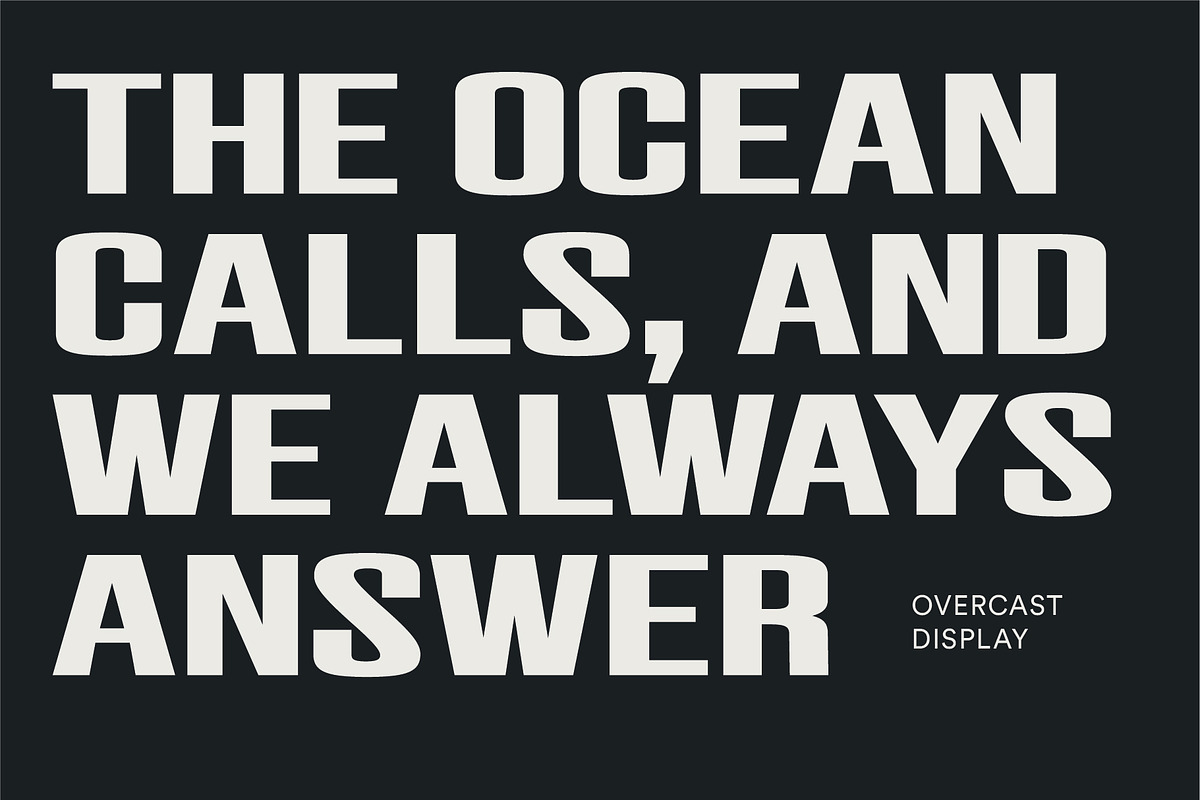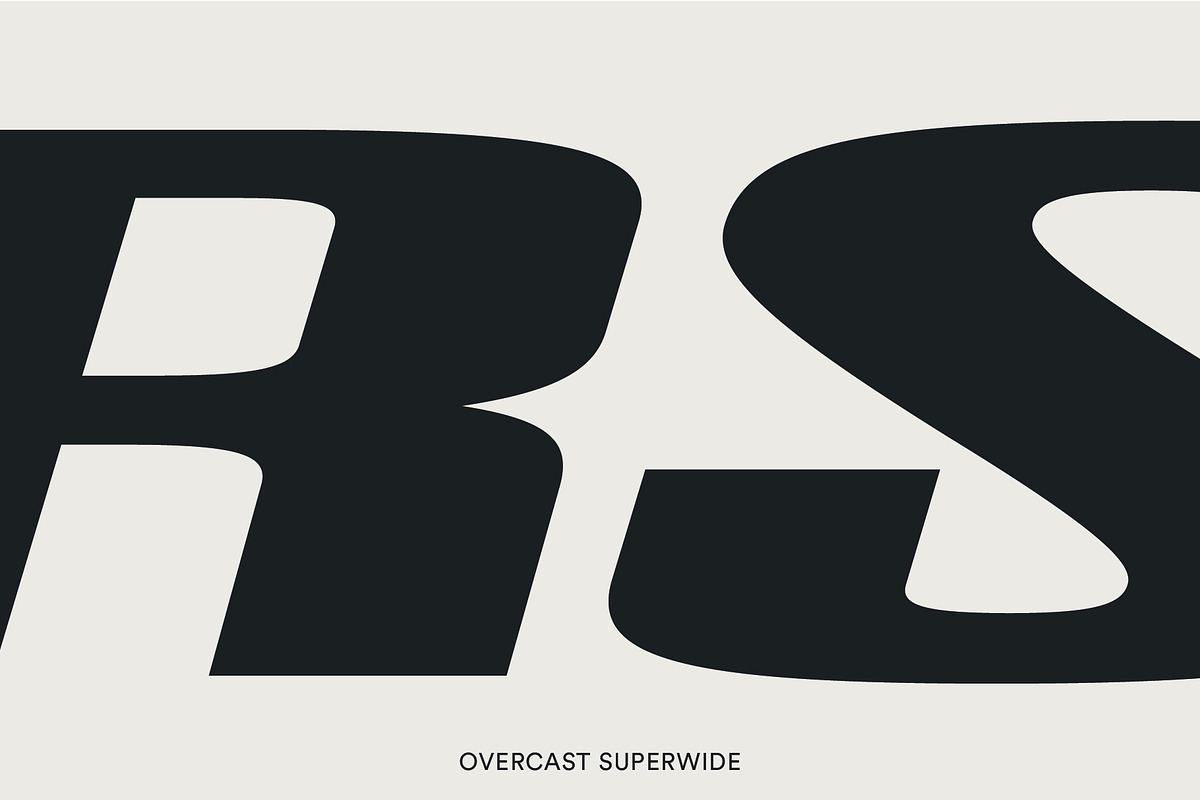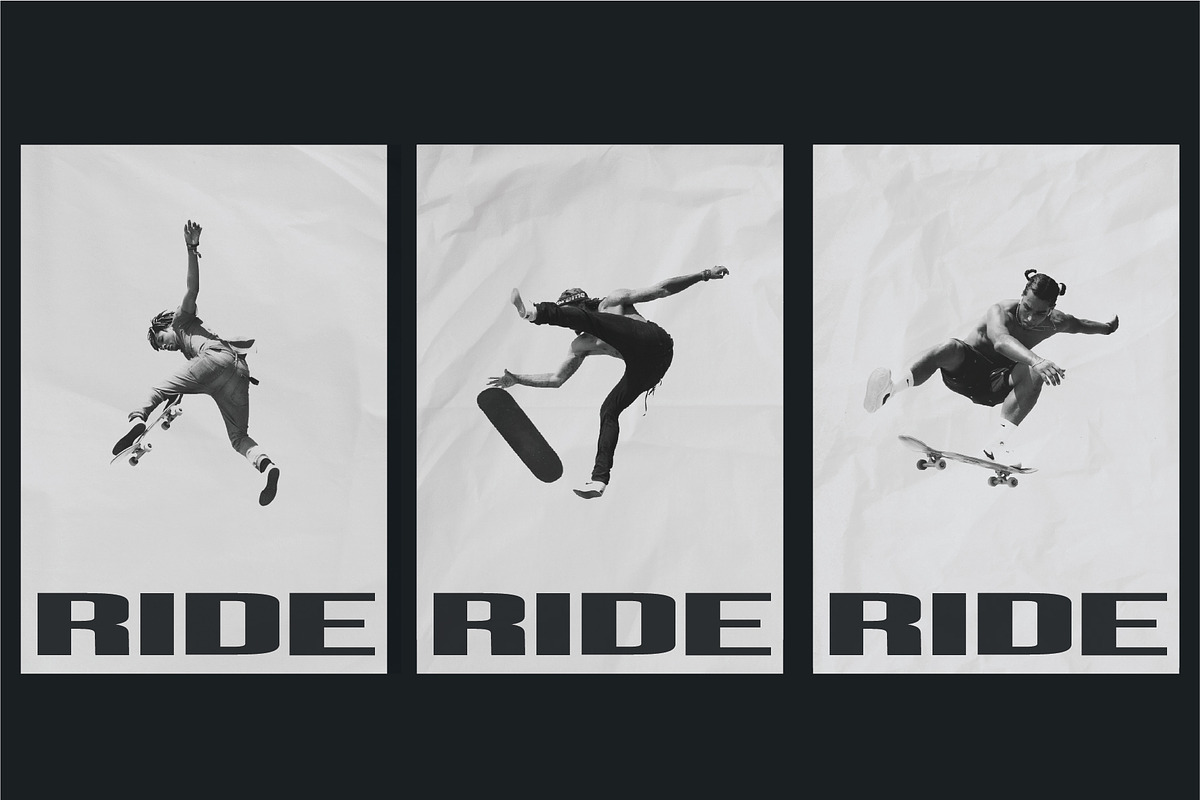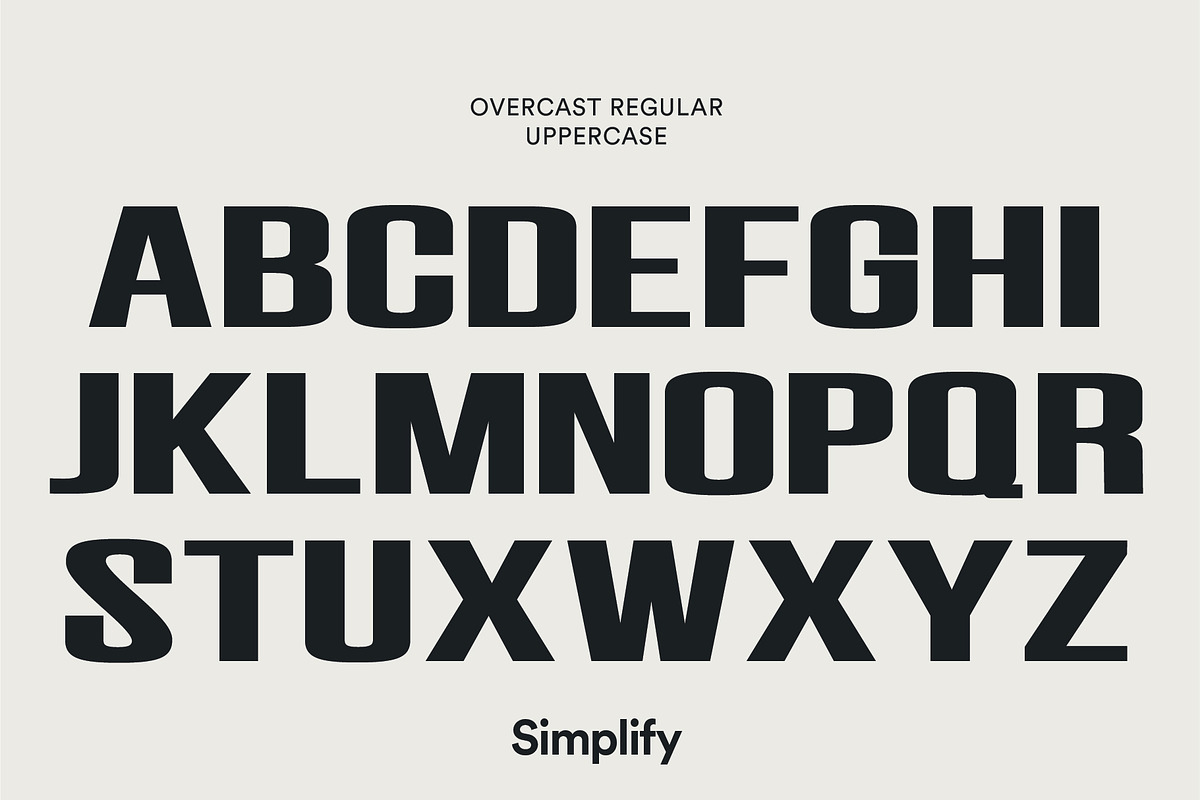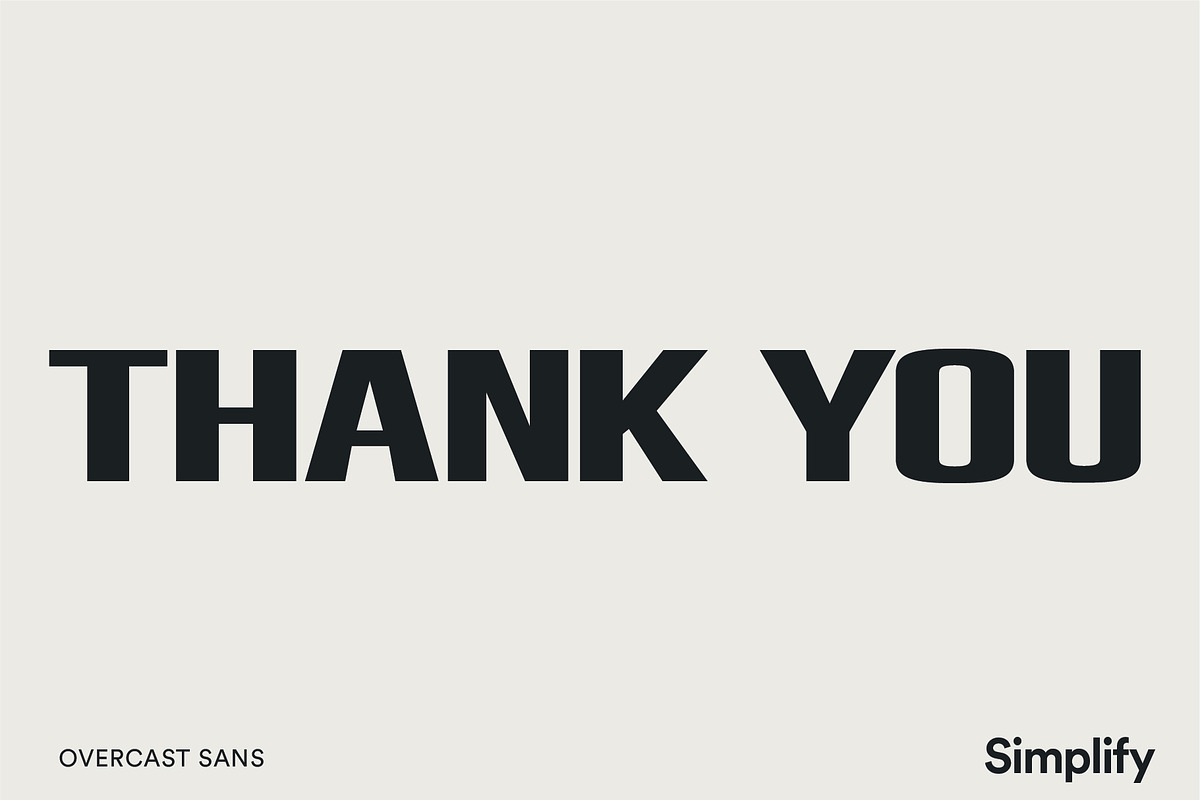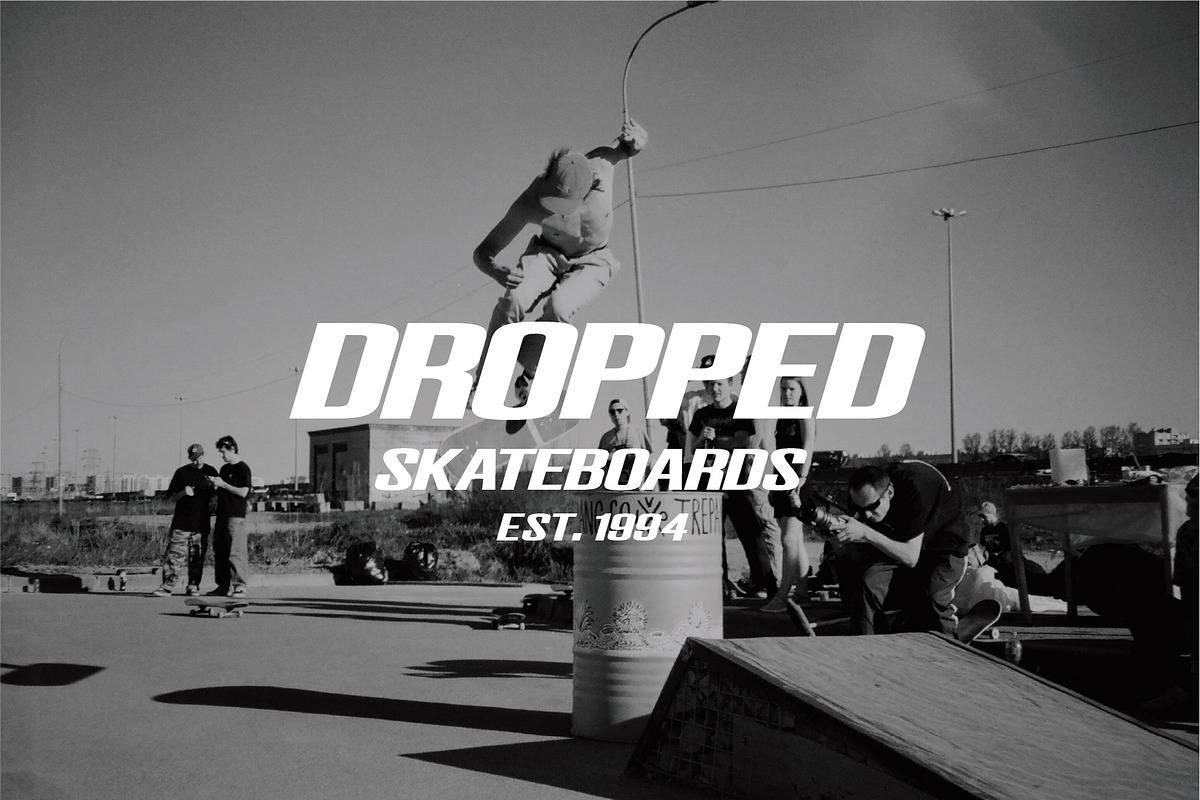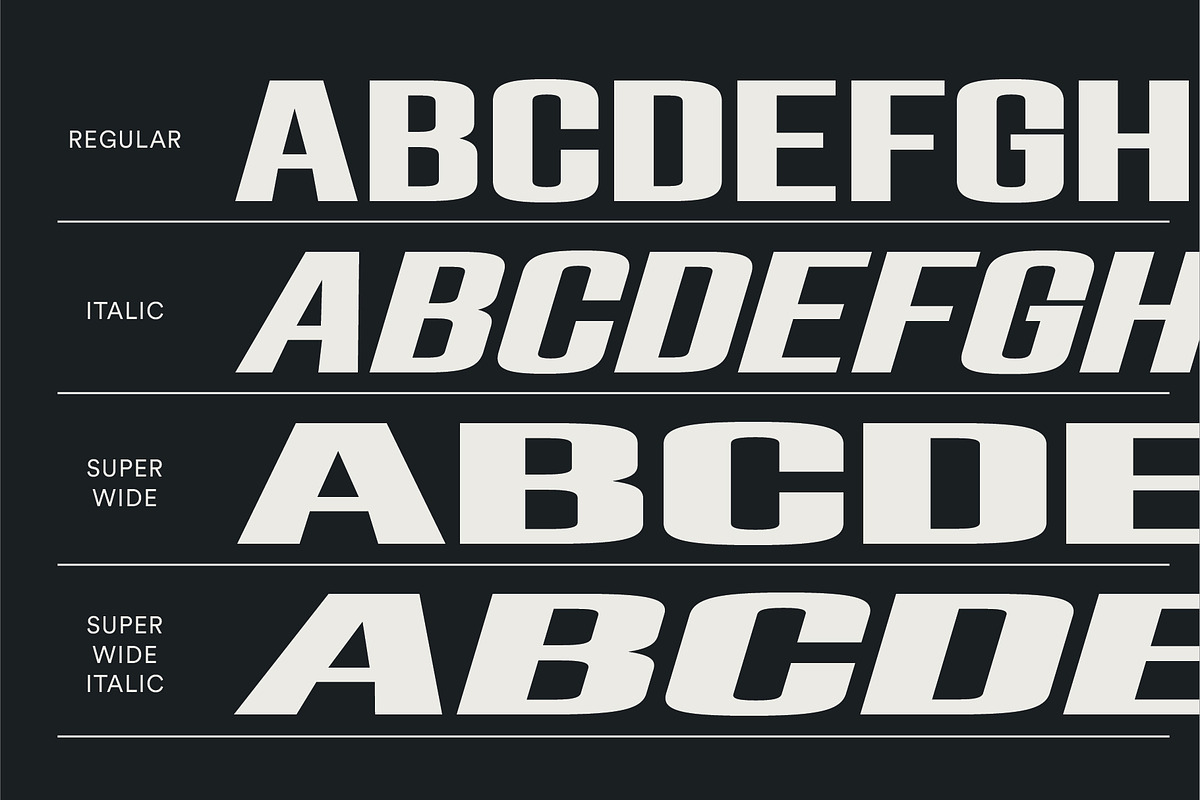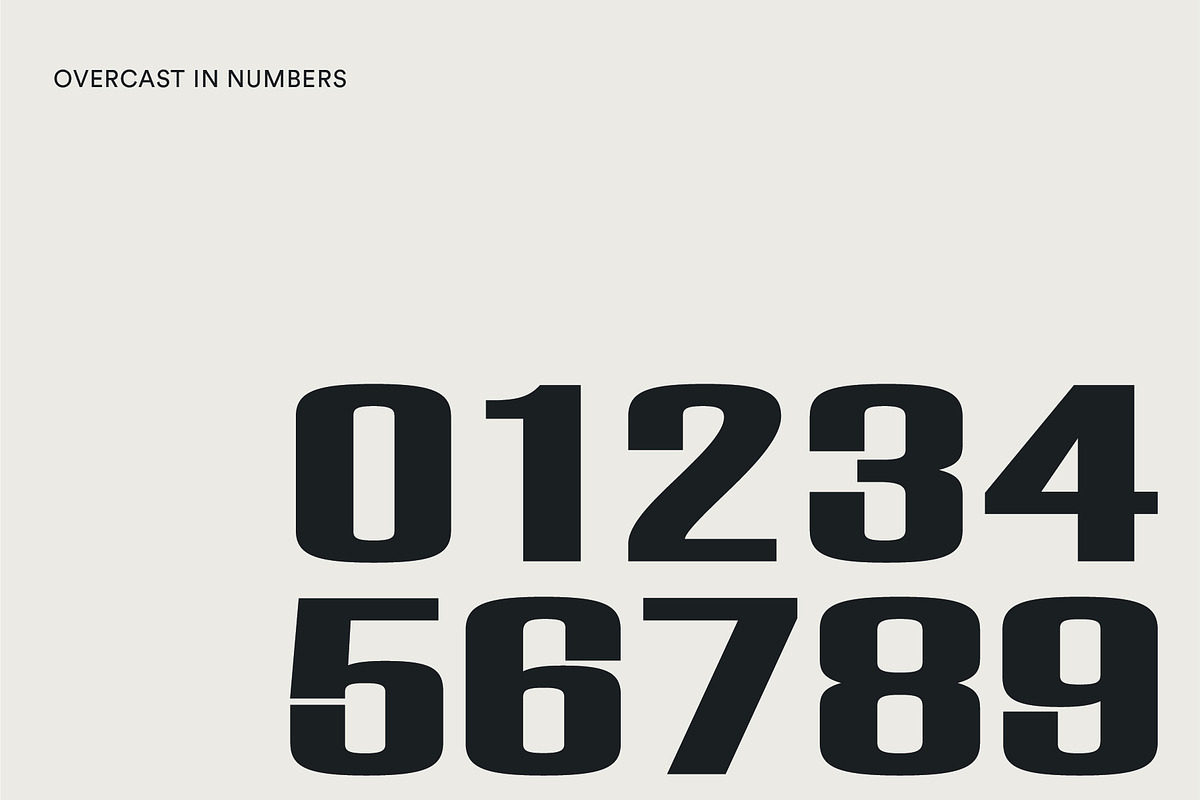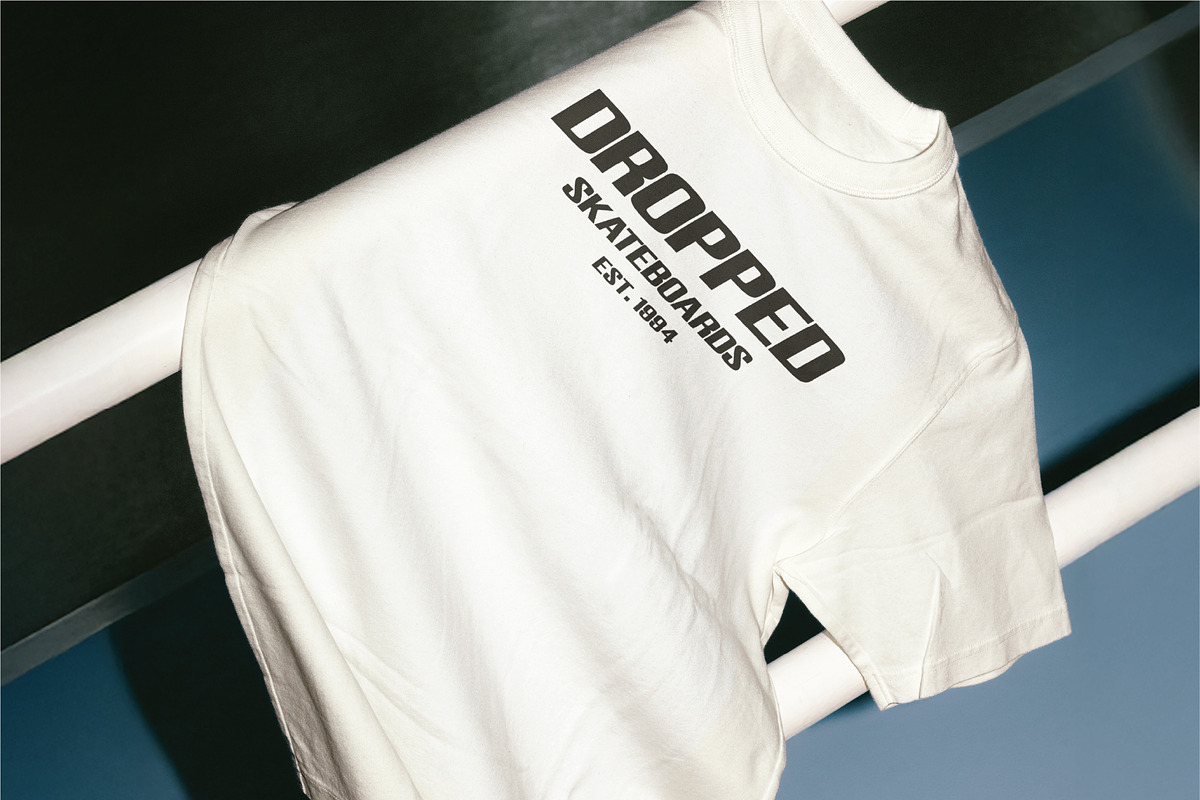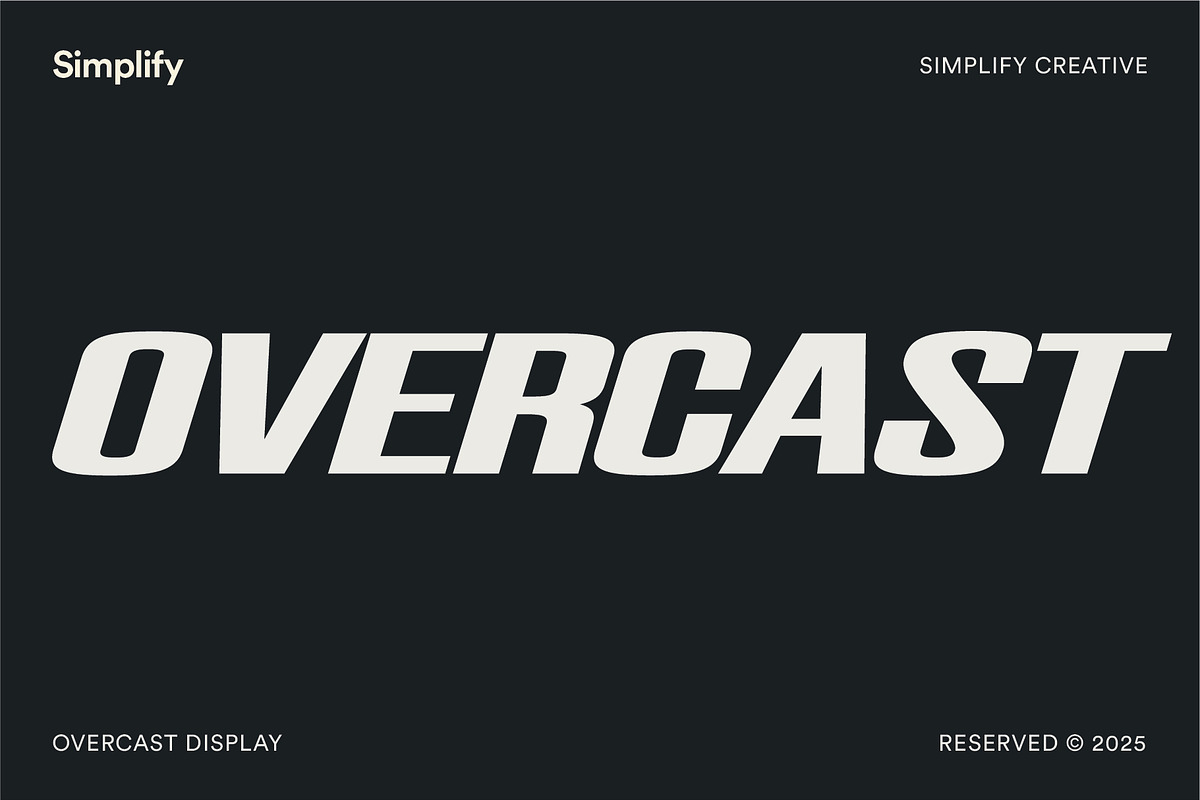
Overcast - Display Font
Overcast is a bold, all-caps sans serif display font that captures the raw energy of underground surf and skate subcultures. With its dynamic contrast between semi-condensed and super wide styles, it nods to the visual language of 90s street posters, lo-fi zines, and countercultural fashion labels, reimagined through a contemporary lens.
All Uppercase Characters
Numbers & Basic Punctuation
Perfect for posters, streetwear branding, stickers, and headlines
Inspired by ‘90s underground skate/surf scenes
Flexible across both compact and expanded formats
Super wide italic is made for movement and impact